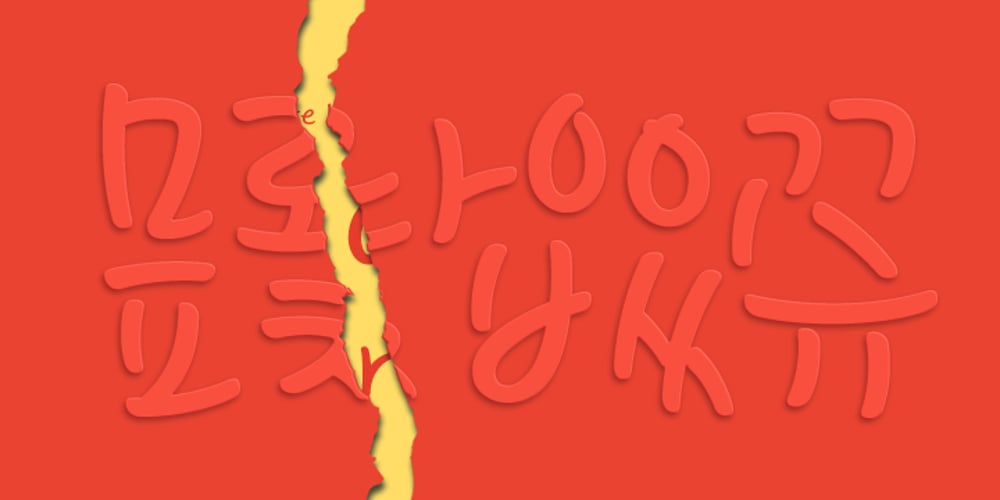
Core Narae
Core Narae font
Core Narae Font Family was designed by Hyun-Seung Lee, Dae-Hoon Hahm and published by S-Core. Core Narae contains 1 styles and family package options. CoreNarae is an upright, casual handwriting style font and all glyphs have been hand-crafted. This typeface is live and friendly because of its bending strokes and rhythmic feeling, so it is good for fun text for posters, headers or cards. Supported codepages are MS Windows 1252 Latin1 and MS Windows 949 Korean consisting of 11,172 Korean letters and Symbols except Chinese. This font will make your works more friendly and emotional.